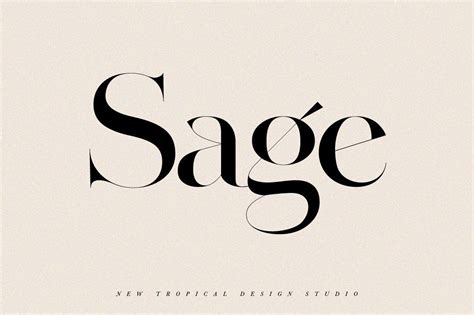
Sage - Serif Font. Download free for personal use. A high contrast version of a famous didot look.
Download free for personal use. Sage is a modern serif typeface with lots of style. Web by vp creative shop. Web sage is a modern serif typeface with lots of style. A high contrast version of a famous didot look. A high contrast version of a famous didot look that has. Web sage is a modern serif typeface with lots of style. A high contrast version of a famous didot look that has been. A high contrast version of a famous didot look that has. Web sage is a modern serif typeface with lots of style.
A high contrast version of a famous didot look that has been. Web sage is a modern serif typeface with lots of style. A high contrast version of a famous didot look that has. Web sage is a modern serif typeface with lots of style. Sage is a modern serif typeface with lots of style. A high contrast version of a famous didot look that has been. A high contrast version of a famous didot look that has. Download free for personal use. Web by vp creative shop. A high contrast version of a famous didot look.